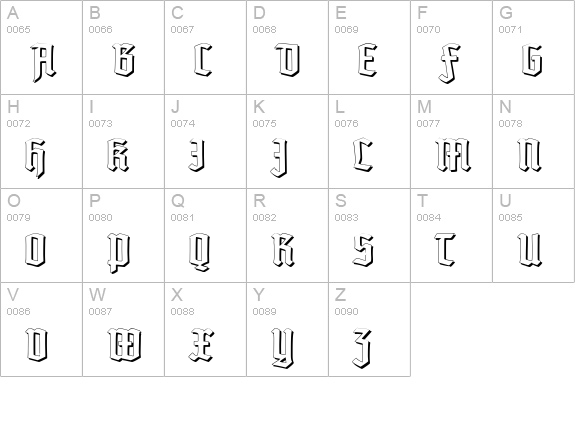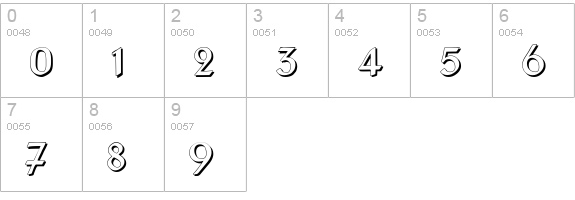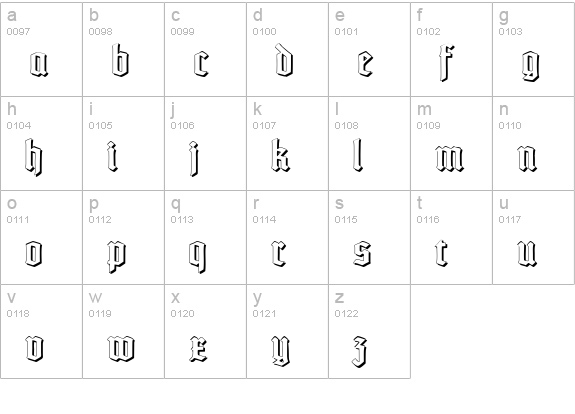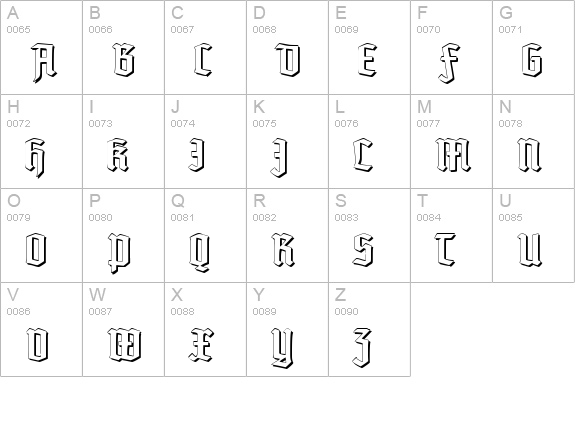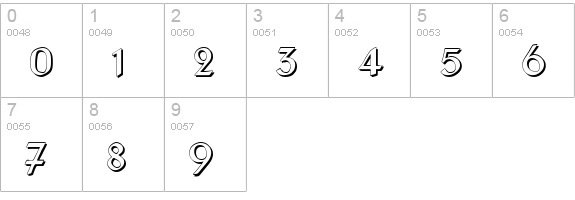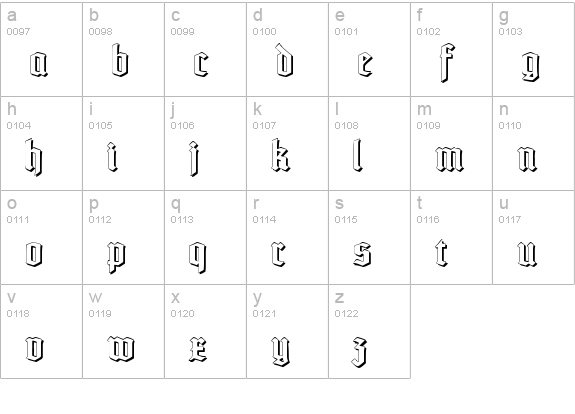
TypographerTextur Schatten font is a remarkable typeface that combines elegance and creativity. Its unique design features intricate details and captivating shadows that add depth and dimension to your text. This font is perfect for creating eye-catching headlines, stylish logos, and stunning posters. With its versatility and artistic flair, TypographerTextur Schatten font allows you to express your creativity and make a lasting impression. Whether you're designing for print or digital media, this font will effortlessly elevate your projects to new heights. One of the best things about TypographerTextur Schatten font is that it is free. Yes, you read that right! This incredible typeface is freely available to download at FontsMarket.com. Now, you can enjoy the beauty and sophistication of this font without worrying about any costs. Downloading TypographerTextur Schatten font from FontsMarket.com is quick and easy. With just a few clicks, you can have this stunning font at your fingertips, ready to enhance your designs. So why wait? Embrace the elegance and creativity of TypographerTextur Schatten font and take your typographic creations to the next level.